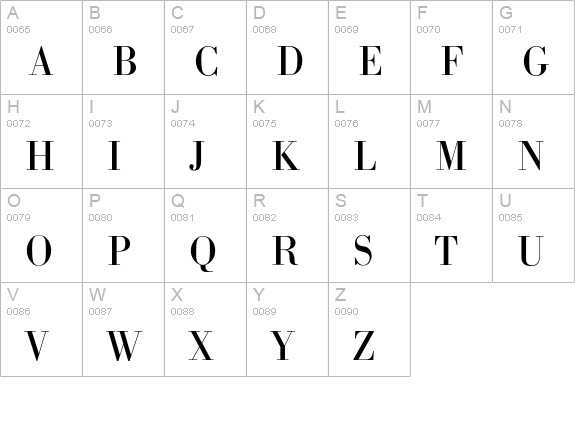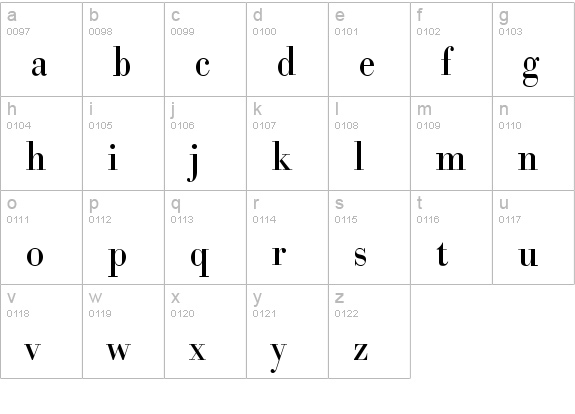
Bodoxi-Regular is the standard, neutral variant in the Bodoxi typeface family \xE2\x80\x94 well suited to general body text, paragraphs, and standard typographic work.
Bodoxi-Regular is a versatile and modern font that effortlessly captures attention with its clean lines and contemporary aesthetic. Its sleek design makes it perfect for a wide range of projects, from branding to editorial design. With a balanced combination of sharp edges and subtle curves, Bodoxi-Regular exudes a sense of sophistication and professionalism. What sets Bodoxi-Regular apart is that it is available for free download at FontsMarket.com, making it accessible to designers of all levels. Whether you're working on a personal project or a client's campaign, this font is sure to elevate your work with its timeless appeal. Embrace the power of Bodoxi-Regular and give your designs a touch of elegance and style.